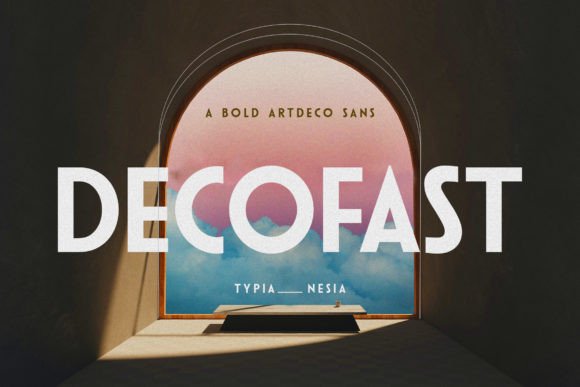
Introducing Decofast Font, the ultimate choice for all your design needs. Created by the talented Typia Nesia, this sans-serif font is the epitome of elegance and sophistication, inspired by the iconic Art Deco era. With its timeless appeal, Decofast Font is the perfect companion for any project that requires a touch of classic glamour.
The beauty of Decofast lies in its ability to transport you back to the golden age of design. Its intricate details and intricate curves capture the essence of Art Deco, making it the go-to font for anyone looking to add a touch of vintage charm to their work. Whether you're designing a book cover, a logo, or packaging, Decofast Font will elevate your project to new heights.
Imagine the impact of using Decofast Font on your branding. With its clean lines and bold presence, this font exudes confidence and professionalism. It commands attention and leaves a lasting impression on anyone who lays eyes on it. Your brand will stand out from the crowd, instantly recognizable and unforgettable.
But Decofast Font is not just about aesthetics. It is also incredibly versatile, adapting effortlessly to any design concept. Its timeless appeal makes it suitable for a wide range of applications. Whether you're working on a poster, a website, or even an invitation, Decofast Font will bring your vision to life with its captivating charm.
What sets Decofast Font apart from the rest is its ability to evoke emotions. It elicits a sense of nostalgia, reminding us of a bygone era filled with elegance and grandeur. It creates a connection with your audience, drawing them in and making them feel a part of something special. Your designs will resonate with people on a deeper level, leaving a lasting impression and forging a strong bond.
In a world where first impressions matter, Decofast Font ensures that your work stands out and captivates. It adds a touch of sophistication and class, elevating your designs to new heights. With its versatility and timeless appeal, this font is a must-have for anyone looking to make a statement.